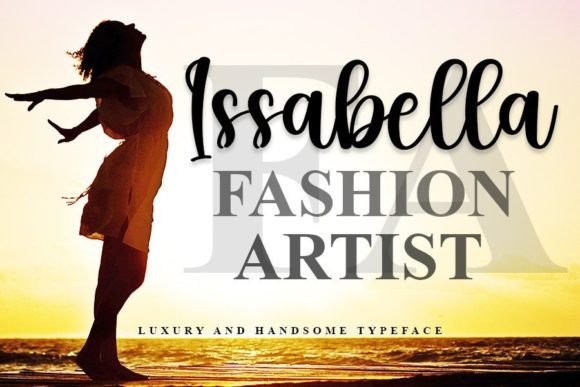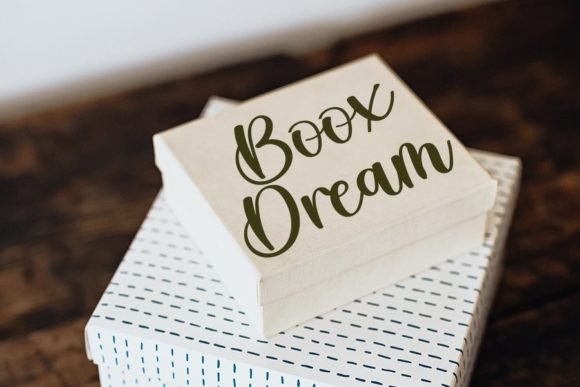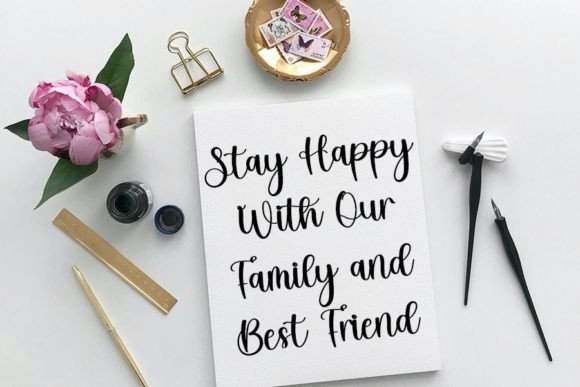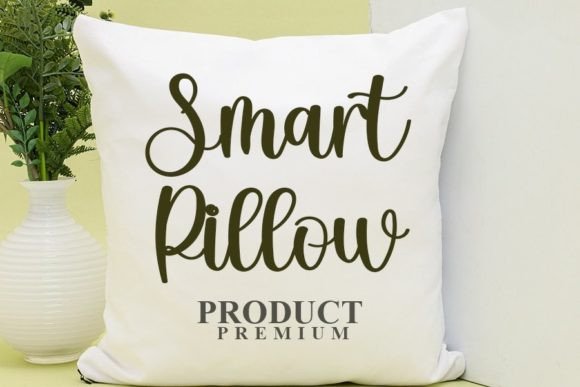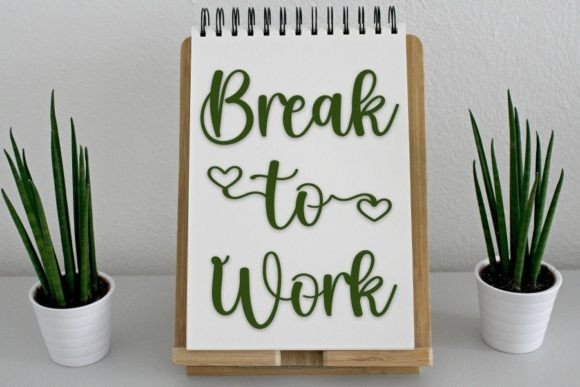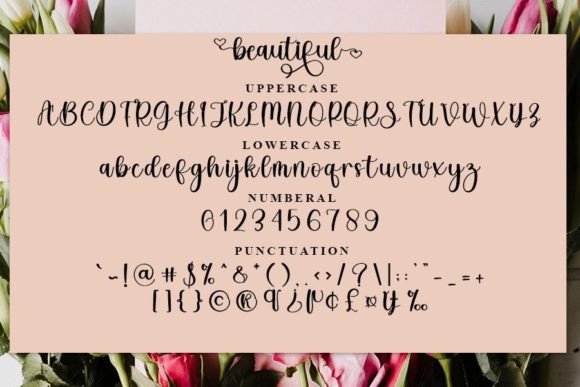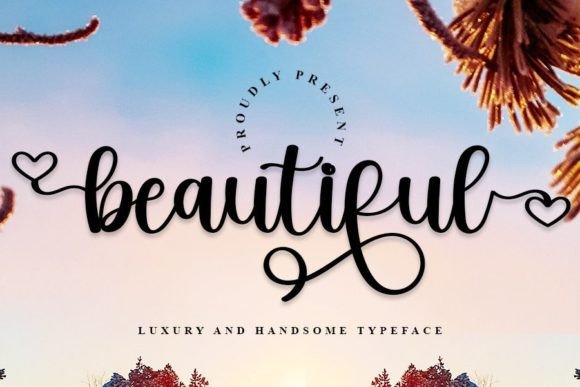
The Beauty of Typography: Discovering the Elegance of Beautiful Font
In the world of design, typography plays a crucial role in conveying messages, expressing emotions, and creating visual identities. Among the numerous fonts available, Beautiful Font stands out for its refined script style, exuding class, elegance, and modernity. This stunning font is perfect for designers and crafters seeking to add a touch of sophistication to their projects.
What Makes Beautiful Font So Special?
Beautiful Font is a beautifully crafted script font that boasts a classy, elegant, and modern look. Its refined design makes it an ideal choice for a wide range of applications, including:
- Logos and branding: Create a lasting impression with a sophisticated logo that reflects your brand’s personality.
- Invitations and stationery: Add a touch of elegance to your invitations, greeting cards, and stationery.
- Wedding designs: Make your wedding designs truly unforgettable with Beautiful Font’s romantic and refined style.
- Social media posts: Elevate your social media presence with stylish and engaging posts.
The Power of PUA Encoding
Beautiful Font is PUA (Private Use Area) encoded, which means that accessing its amazing glyphs and ligatures is a breeze. PUA encoding allows designers to easily access and use the font’s extended character set, including:
- Glyphs: Alternative characters and symbols that add visual interest to your designs.
- Ligatures: Special character combinations that create a more harmonious and natural look.
Why Designers and Crafters Love Beautiful Font
Beautiful Font has quickly become a favorite among designers and crafters due to its:
- Elegant design: A refined script style that adds a touch of sophistication to any project.
- Versatility: Suitable for a wide range of applications, from logos and branding to social media posts.
- Easy usability: PUA encoding makes it simple to access and use the font’s advanced features.
Beautiful Font is a stunning script font that offers a world of creative possibilities. With its elegant design, versatility, and PUA encoding, it’s the perfect choice for designers and crafters seeking to add a touch of sophistication to their projects. Whether you’re creating logos, invitations, or social media posts, Beautiful Font is sure to impress. Discover the beauty of typography and elevate your designs with Beautiful Font.